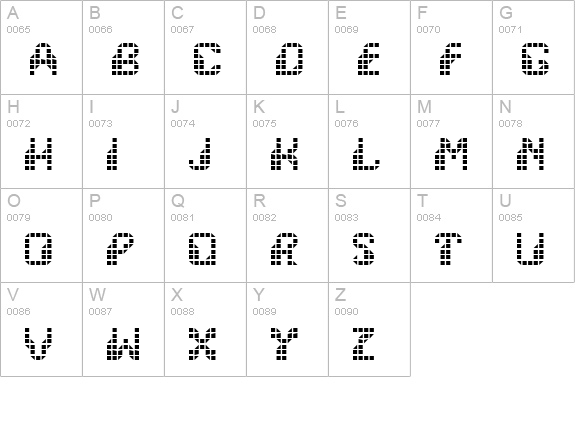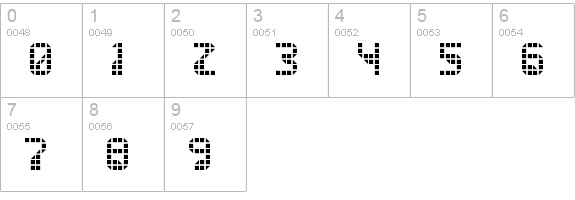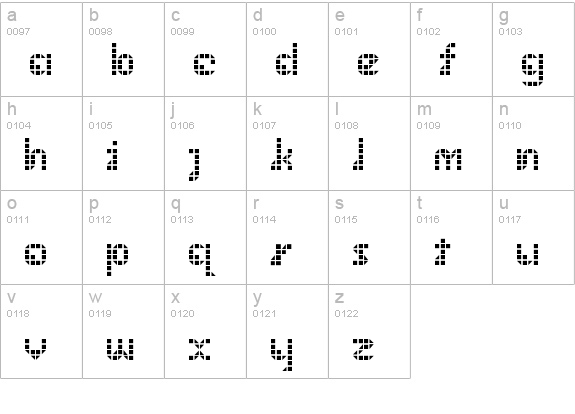
Introducing the compelling and dynamic Wargames font, a powerful typeface that unleashes a commanding presence on any design project. This font exudes strength and authority, making it the perfect choice for projects that require a bold and impactful aesthetic. Designed with meticulous attention to detail, Wargames font boasts sharp edges and intricate lines that create an intense visual experience. Its striking appearance is inspired by the strategic world of war, capturing the essence of battlefields and tactical maneuvers. The versatility of Wargames font allows it to seamlessly adapt to various design contexts. Whether you're working on a logo, poster, website, or any other creative endeavor, this font will effortlessly elevate your visual content to new heights. One of the most remarkable features of Wargames font is that it is available for free download at FontsMarket.com. This means that you can enjoy the full power and impact of this font without any financial constraints. By making it freely accessible, the creators of Wargames font have demonstrated their dedication to supporting designers and ensuring that creative expression knows no bounds. Embrace the commanding aura of Wargames font and let it empower your designs with its bold presence. Download Wargames font from FontsMarket.com today and unlock a world of limitless possibilities for your creative projects.